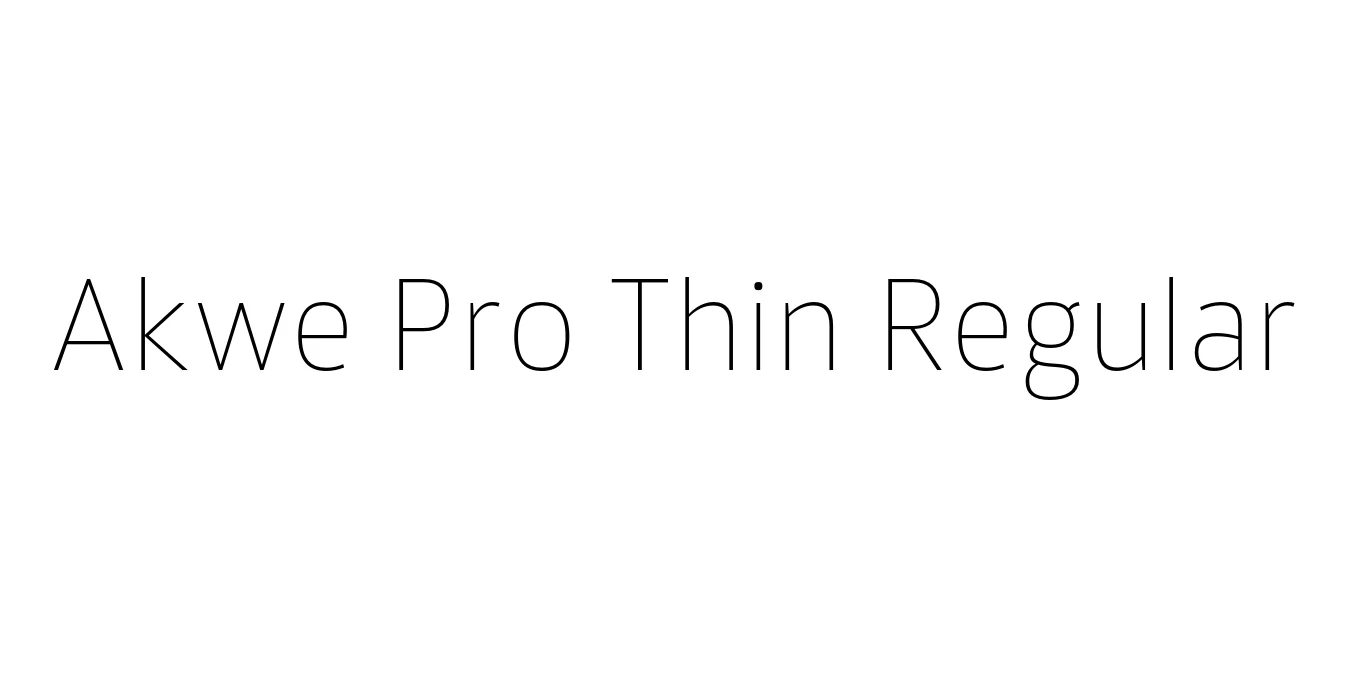
Akwe Pro Thin Regular
Designed by Olexa Volochay
Akwe Pro Thin Regular is a sophisticated geometric sans-serif typeface meticulously crafted by Olexa Volochay. This specific weight is part of a larger, versatile family designed to embody modern elegance through clean lines and a minimalist aesthetic. Its structure is built upon precise geometric foundations, ensuring a balanced and airy feel that is particularly effective in high-resolution digital displays and high-end print media.
The typeface excels in providing a contemporary professional look, making it a favorite for designers who require a font that feels both technical and stylish. With its wide character set and refined kerning, Akwe Pro Thin Regular offers excellent legibility despite its delicate weight, making it a powerful tool for branding projects that aim to convey a sense of luxury, innovation, and clarity.
Akwe Pro Thin Regular Best Uses
Ideal for high-end luxury brand identities and sophisticated logotypes.
Perfect for elegant, thin headlines in fashion or lifestyle magazines.
Great for minimalist UI/UX headers and hero sections.
Excellent for clean, modern promotional layouts and minimalist posters.